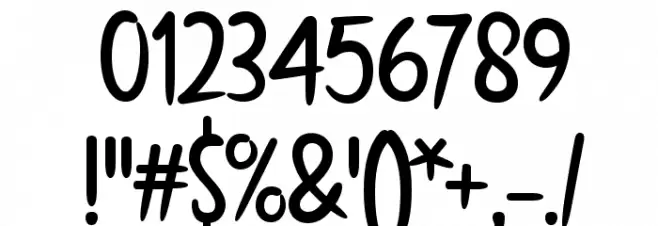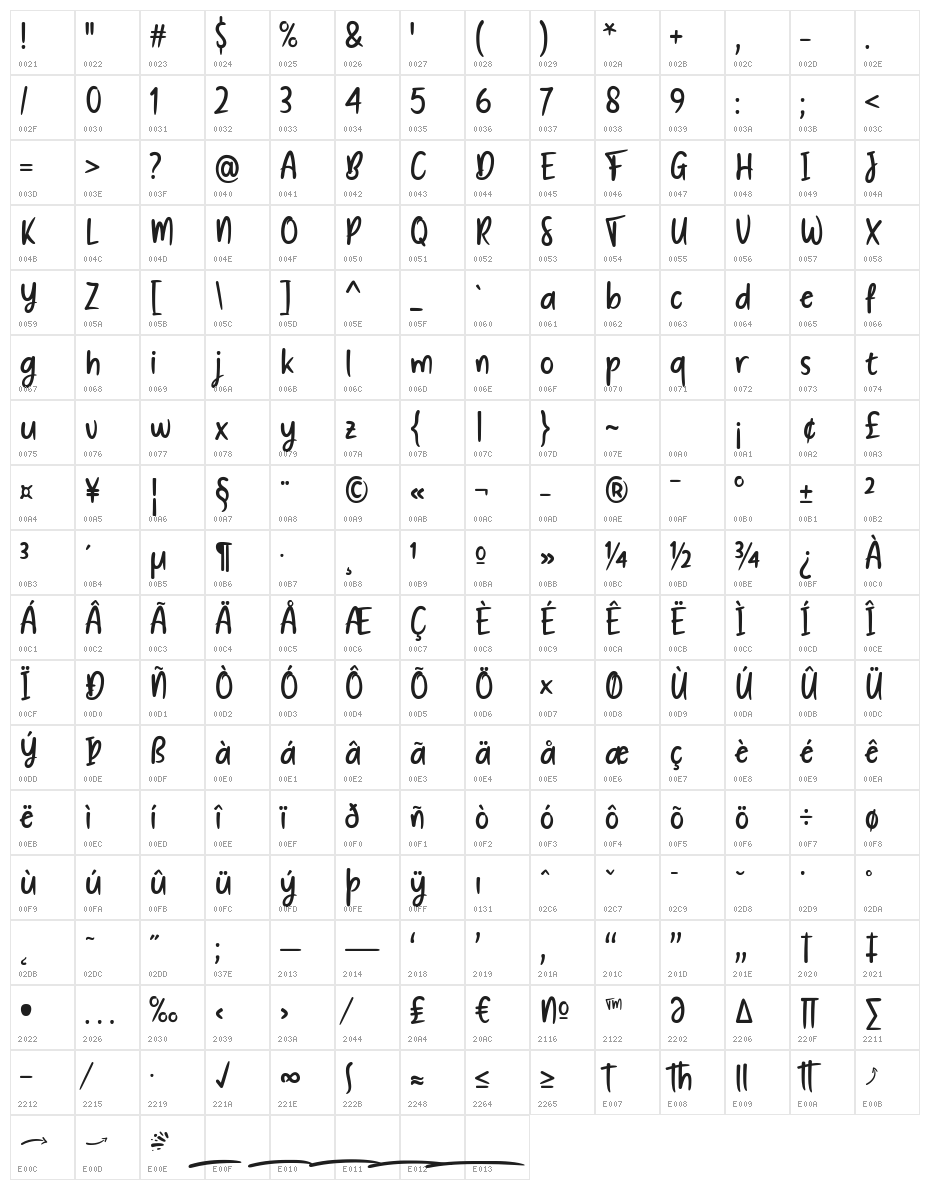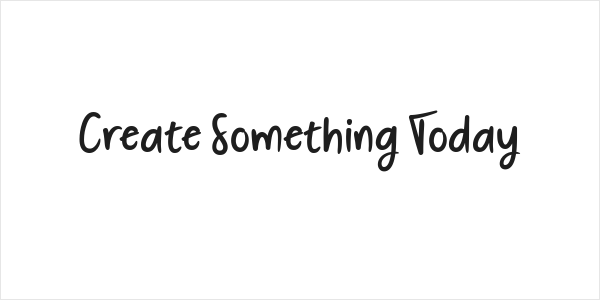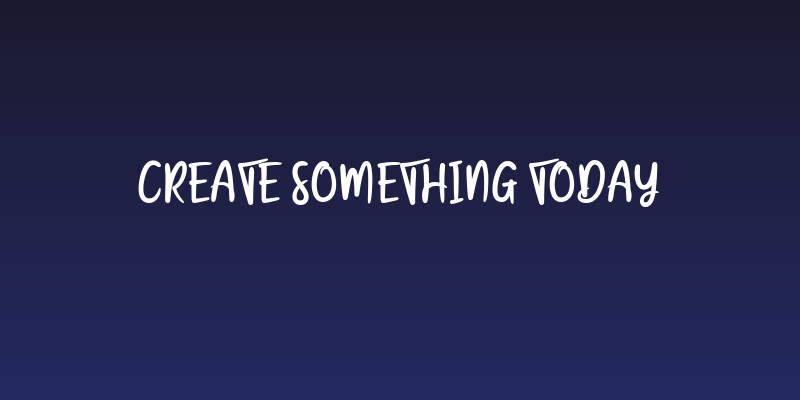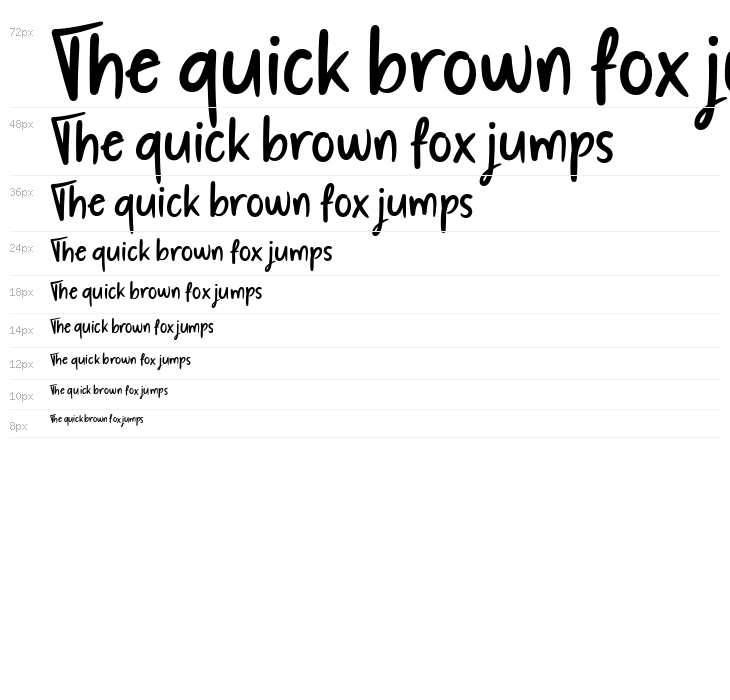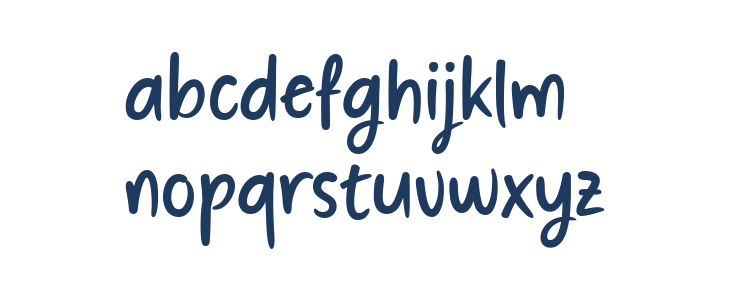
Create Something Today Font
Create Something Today Description
This playful and energetic font features a handwritten style with a bold, expressive character. The letters are slightly slanted, giving a dynamic and lively appearance. Each character is crafted with smooth, rounded edges, contributing to a friendly and approachable feel. The uppercase and lowercase letters maintain a consistent style, with a whimsical touch that is evident in the unique curves and loops. The numbers and special characters are equally expressive, ensuring a cohesive look across all elements. This font is perfect for projects that require a personal, informal touch, such as greeting cards, invitations, or creative branding.
| Overall Style | Playful, Energetic, Informal |
| Proposed Projects | Ideal for greeting cards, invitations, creative branding, and playful designs. |